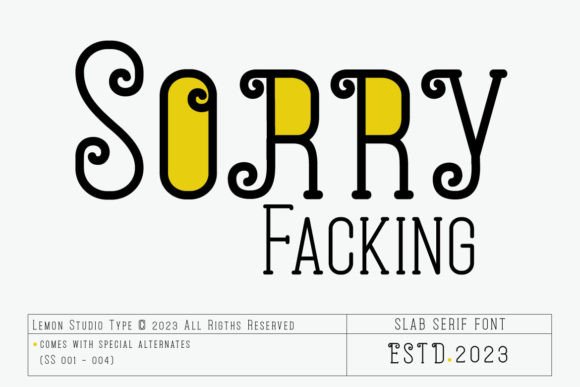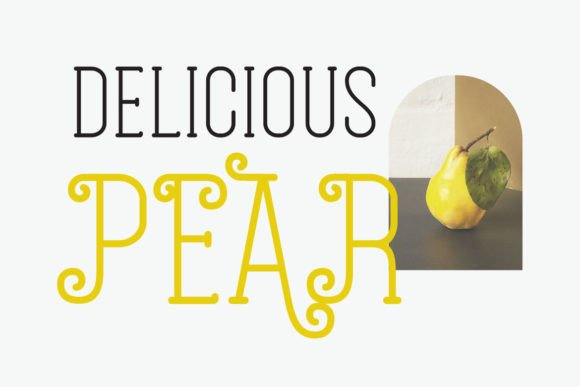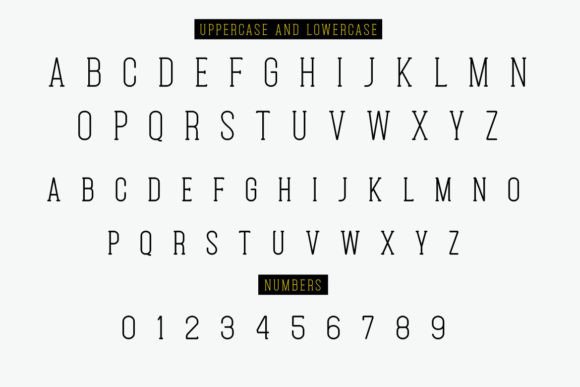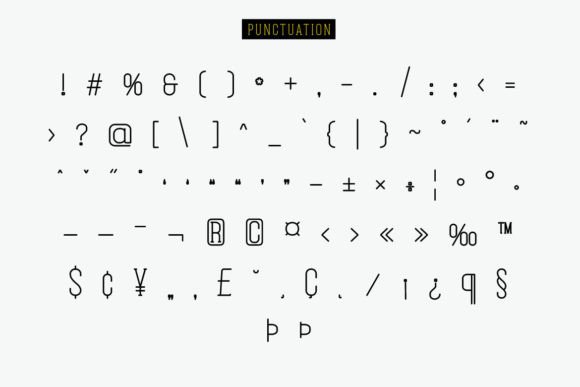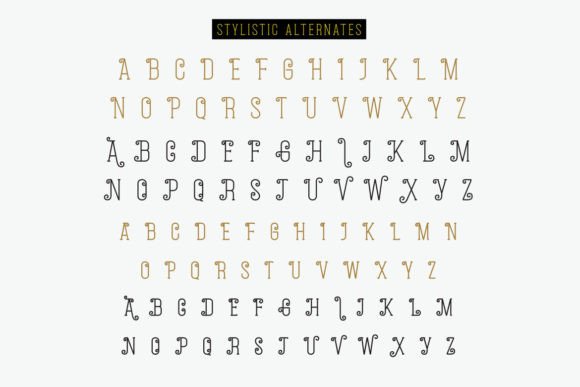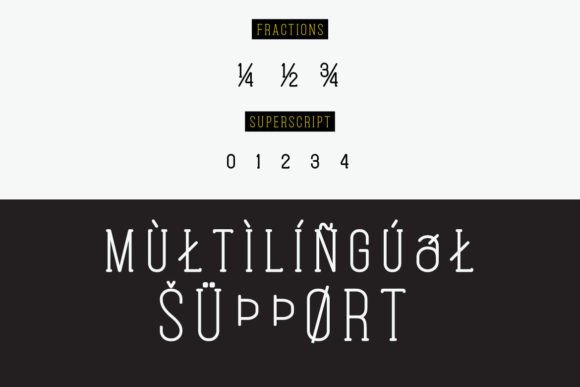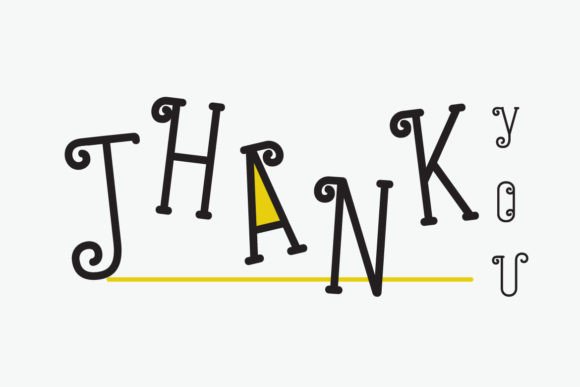
Sorry Facking
About Sorry Facking
Sorry Facking is a monoline slab serif font. It comes with a slab serif style that can appear casual and is equipped with alternate styles that show a strong retro. This lovely font is perfect for headings, brandings, posters, fashion, clothing, or more.